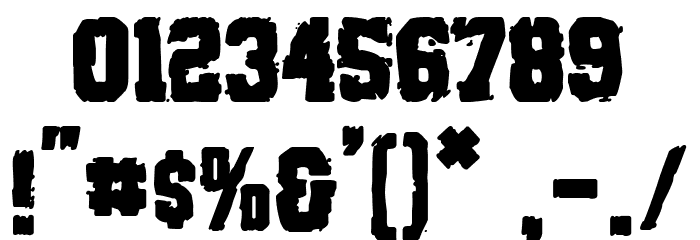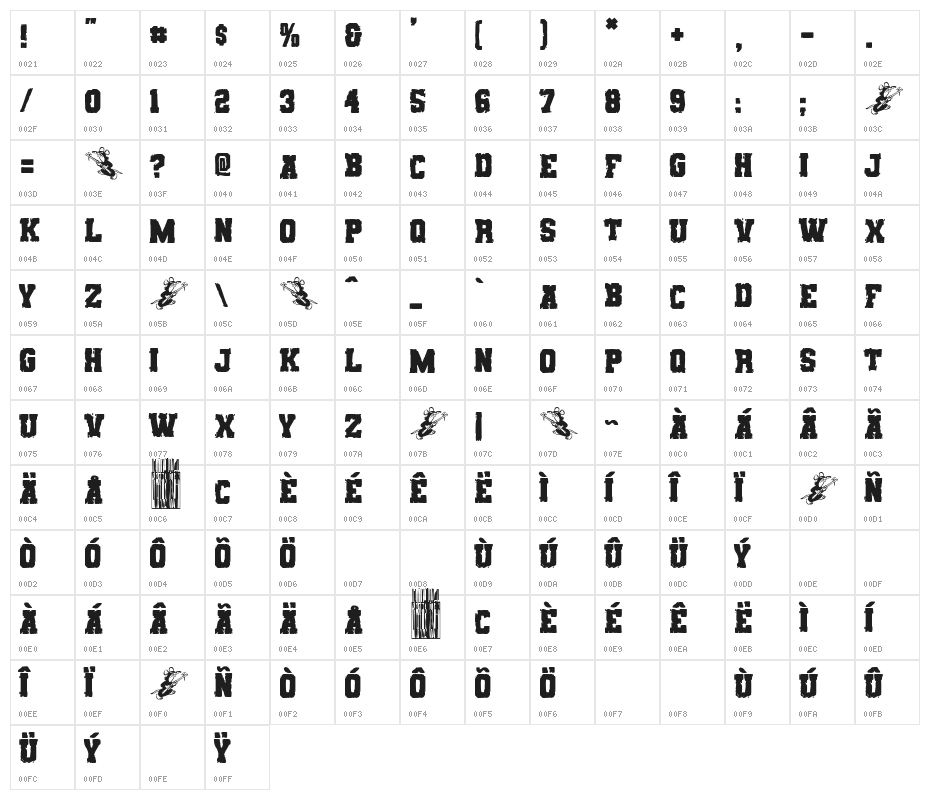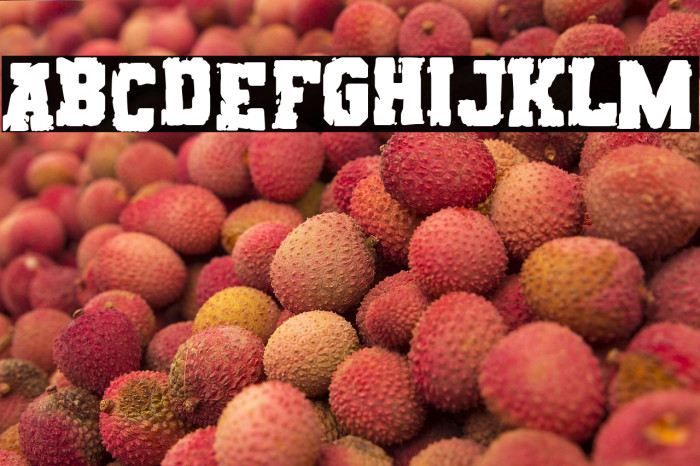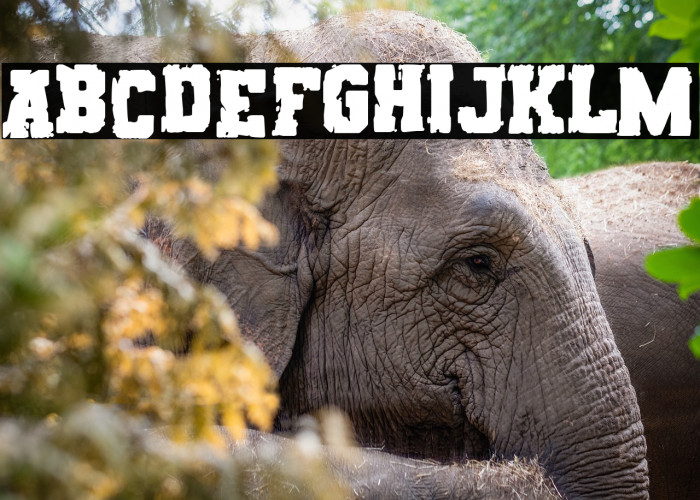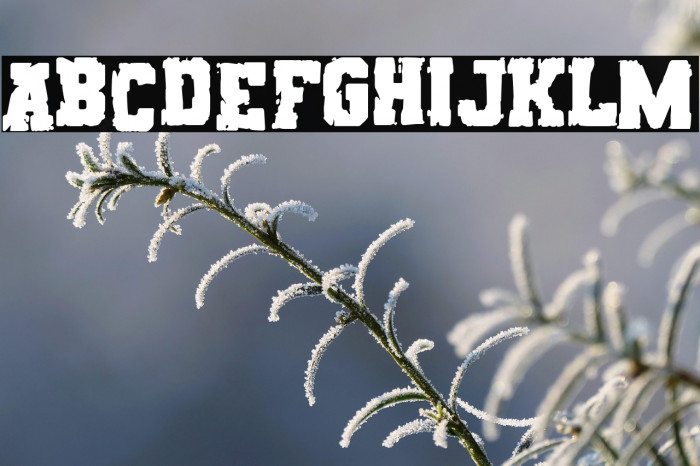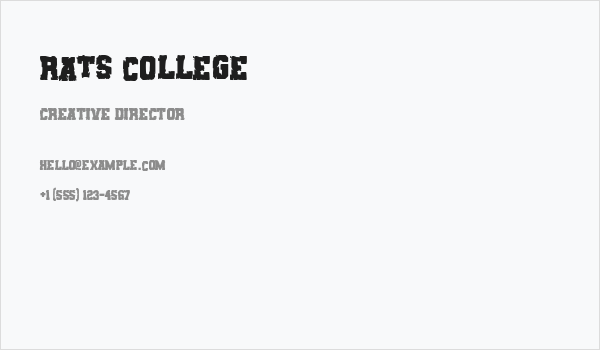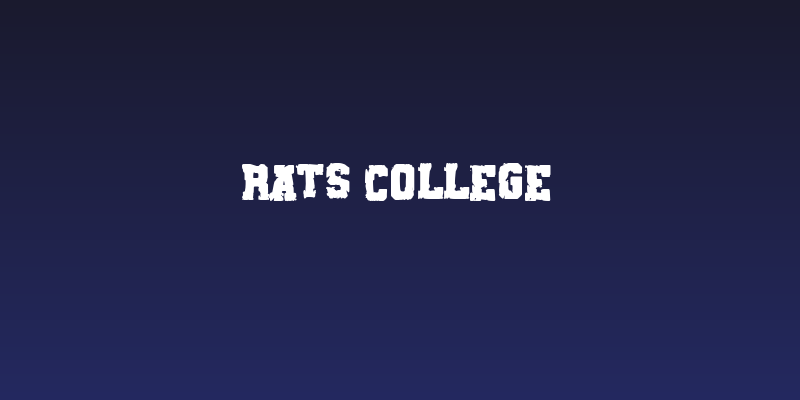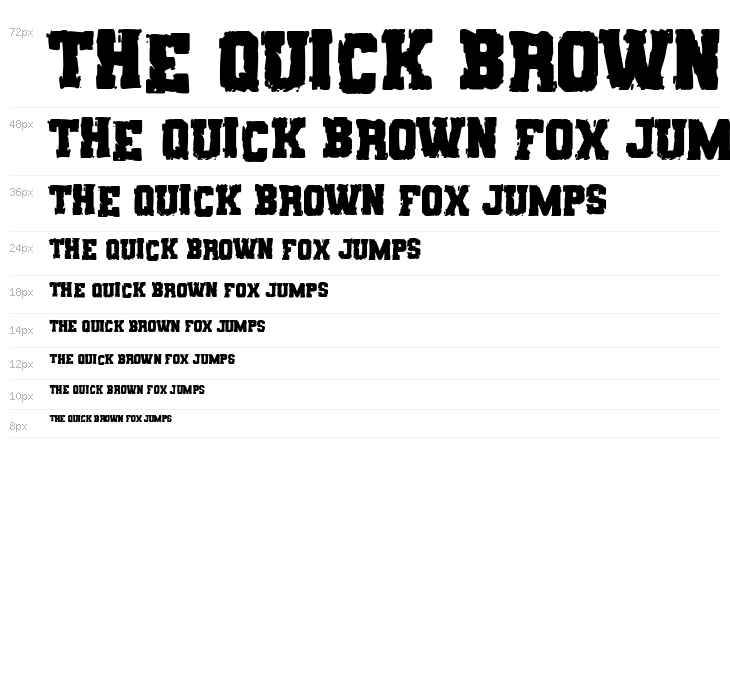
Rats College Font
Rats College Description
This font features a bold and rugged design with a distressed texture that gives it a worn, vintage appearance. The characters are blocky and substantial, with irregular edges that suggest a hand-crafted or weathered look. This style is reminiscent of collegiate or sports-themed fonts, often used to convey strength and durability. The uppercase letters are prominent and assertive, while the numbers and special characters maintain the same boldness and texture, ensuring consistency across all elements.
| Proposed Projects | Ideal for sports team branding, vintage-themed posters, apparel design, and event promotions. |